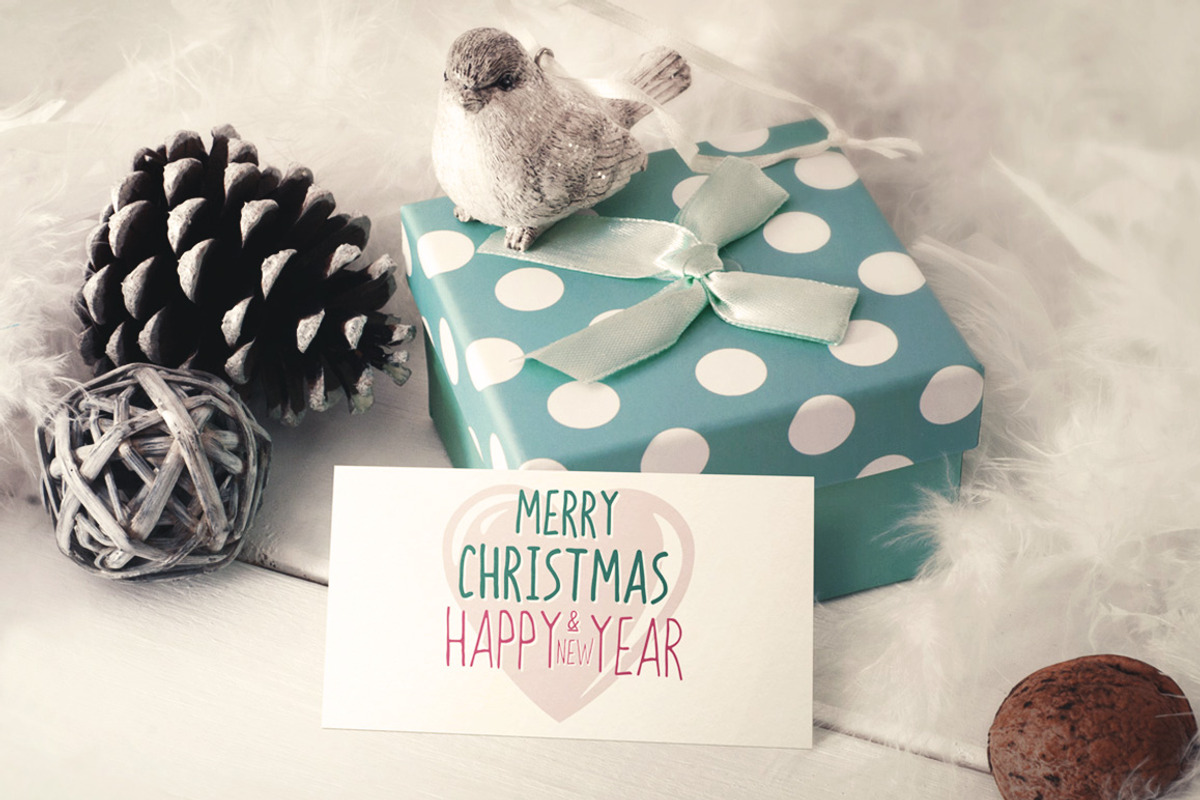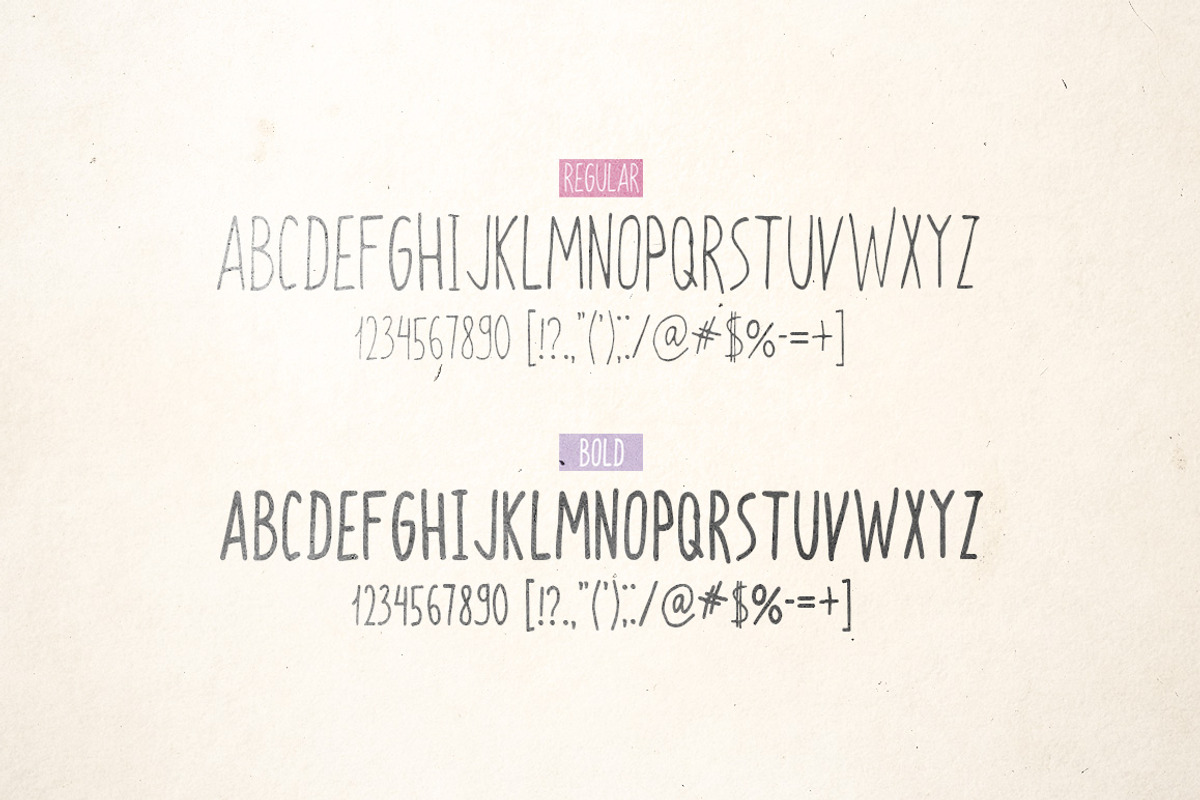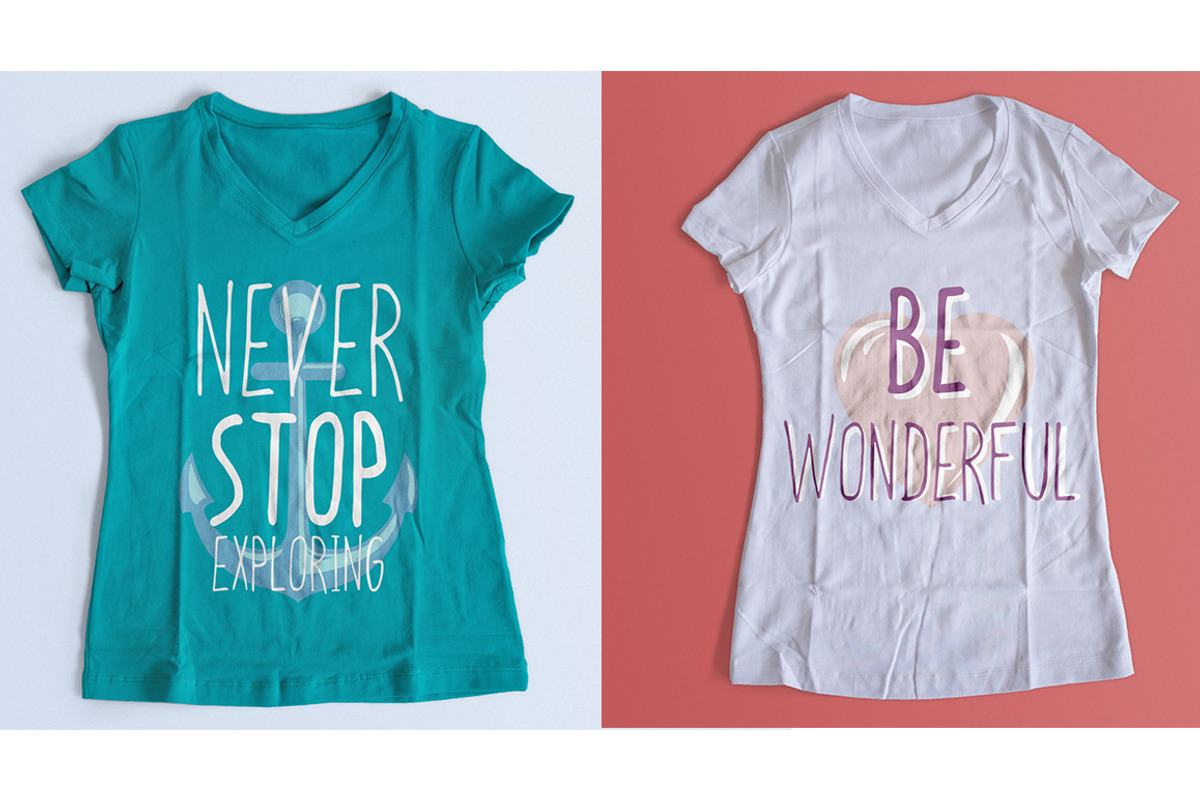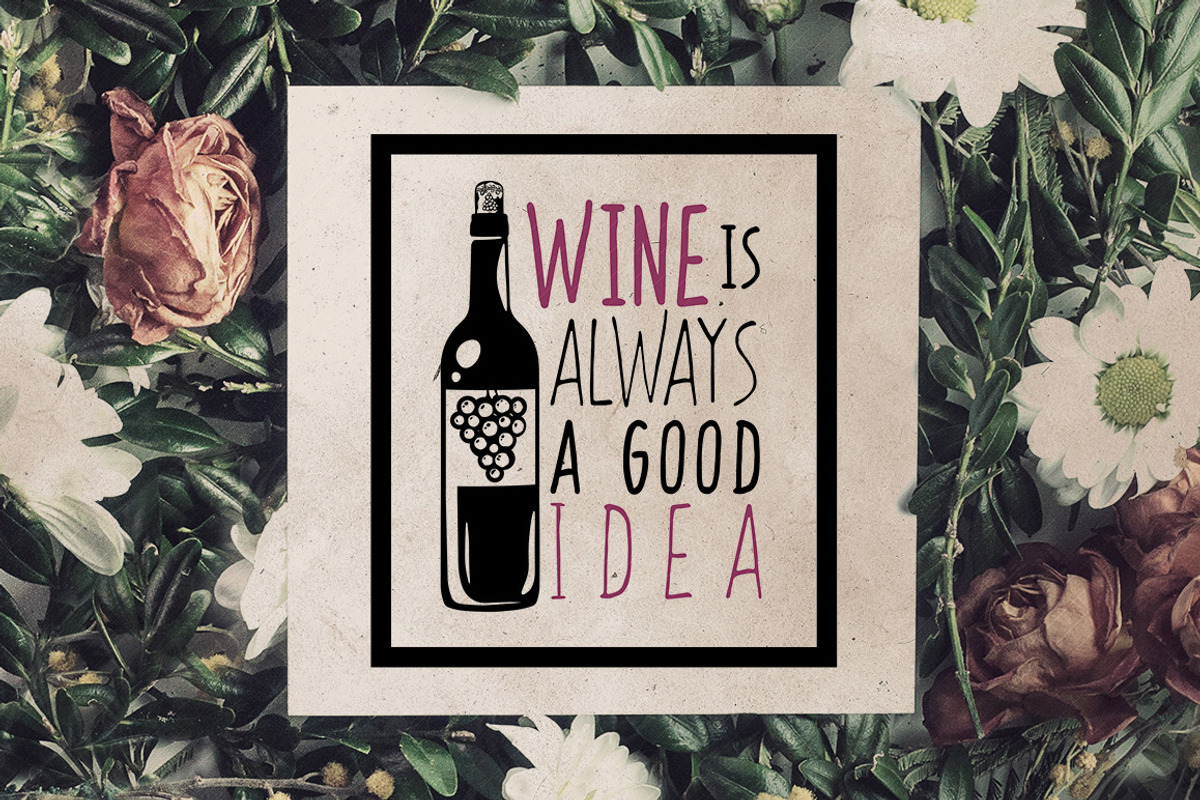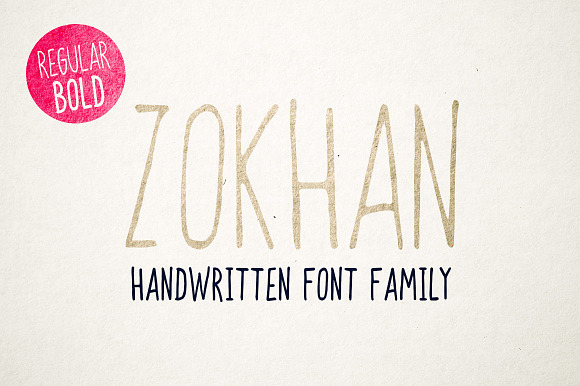
Zokhan - Font Family
Zokhan - handwritten font family includes bold and regular versions. It's look great on wedding (or other) invitations, greeting cards, stamps, posters, advertising, flyers. Zokhan is cute font made by hands and pen. It's perfect for designs when you need to simulate handwriting effect.
- Zokhan - handwritten font family includes bold and regular versions.
- Zokhan Regular
- Zokhan Bold